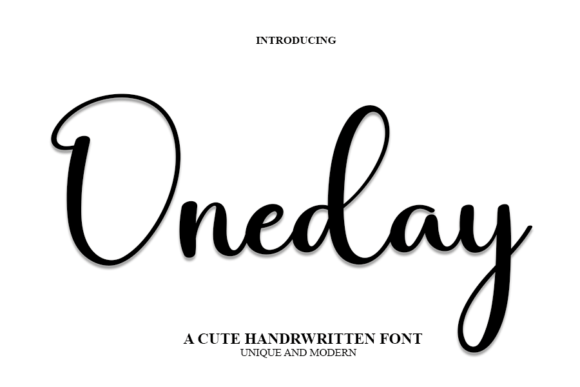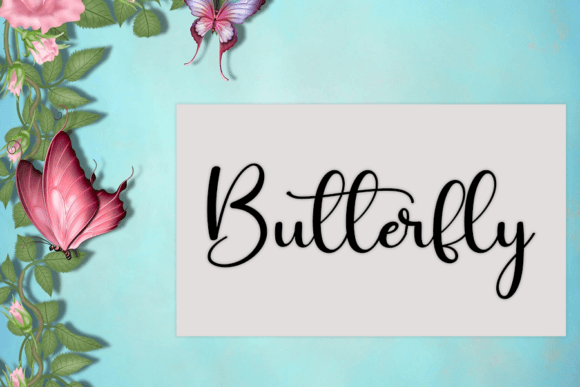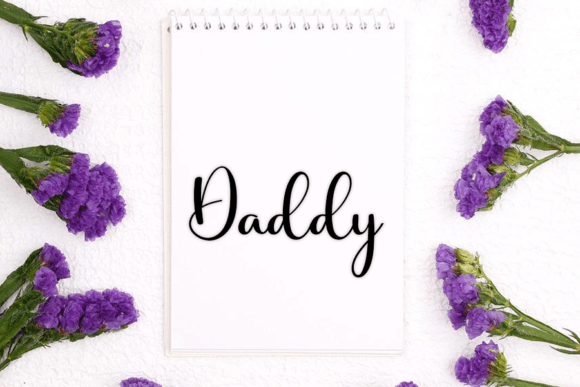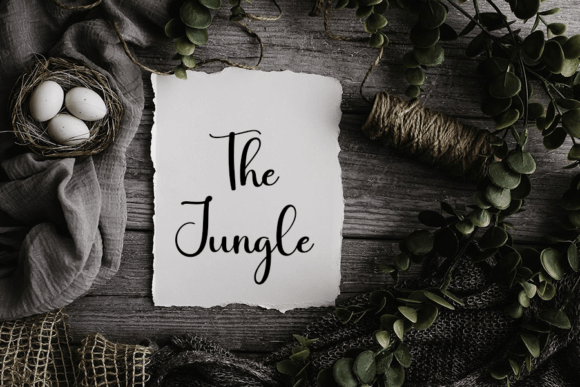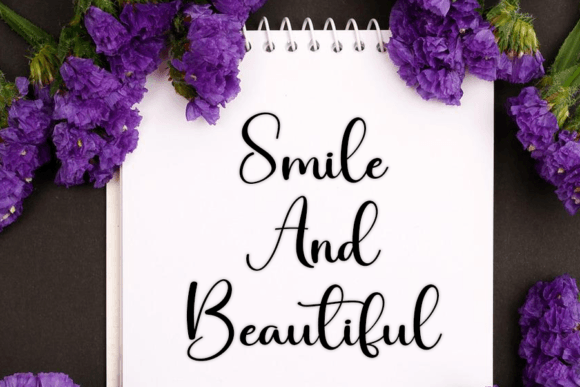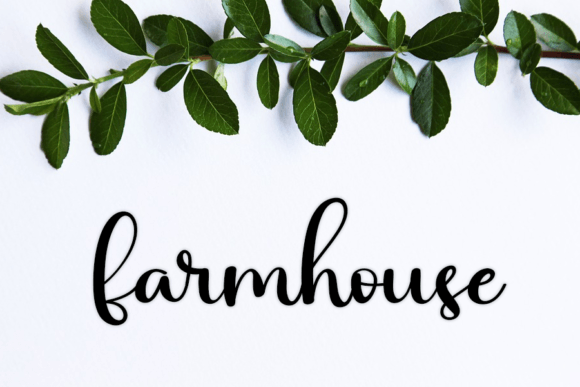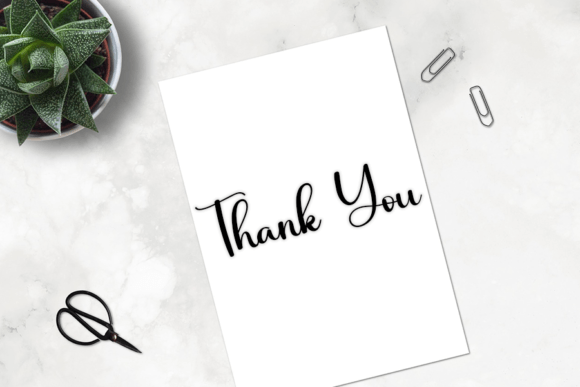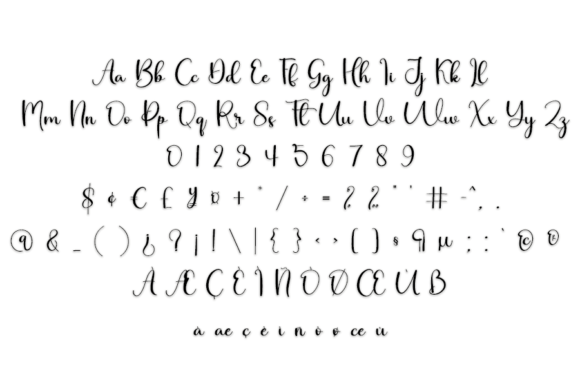
Oneday Font
About Oneday Font
**Oneday: An Elegant and Feminine Typeface for Captivating Headlines**
Oneday is a typeface that radiates elegance and femininity, making it an excellent choice for creating captivating headlines that leave a lasting impression. Whether you’re working on wedding stationery, invitations, florist branding, packaging, or social media posts, Oneday adds a touch of sophistication and grace to your typography.
The charm of Oneday lies in its elegant and finely crafted characters that convey a sense of timeless beauty and femininity. Each letter is meticulously designed to enhance your headlines and make them stand out with a touch of elegance.
This typeface’s versatility ensures it can adapt to various design contexts. You can use it to create exquisite wedding invitations that reflect the beauty of the occasion, infuse a sense of femininity into florist branding, add elegance to packaging, or create captivating social media posts that resonate with your audience.
In summary, Oneday is more than just a typeface; it’s a source of elegance and femininity that enhances your headline designs. Its finely crafted characters make it the perfect choice for creating captivating and sophisticated typography. With Oneday, your creative projects will shine with a touch of classic and timeless beauty. Choose Oneday, and let your headlines captivate with their elegant and feminine presence.